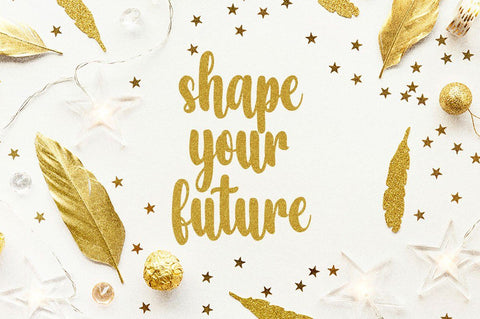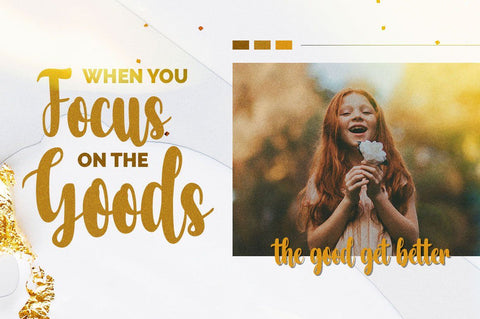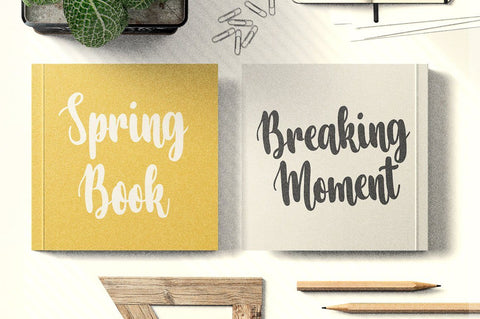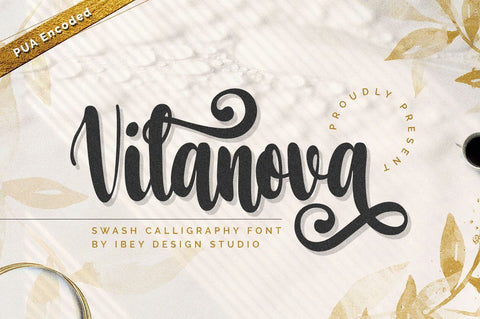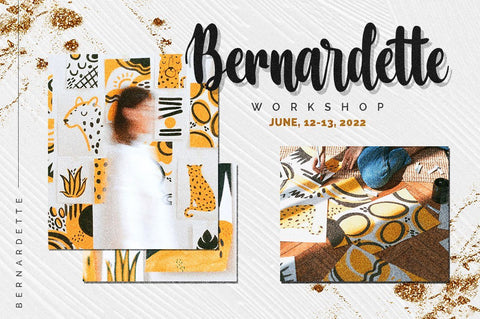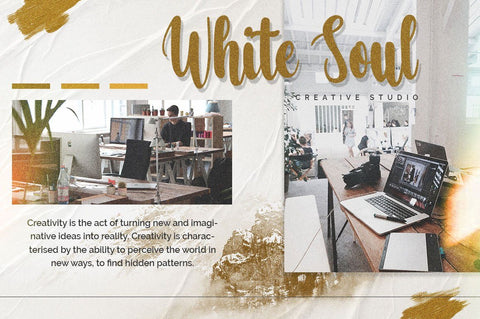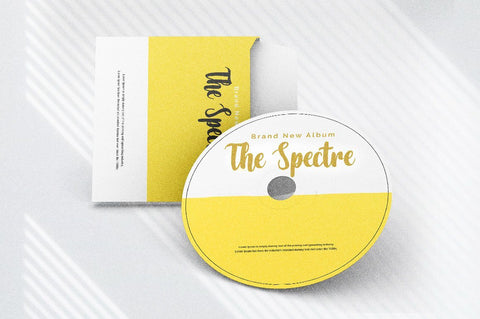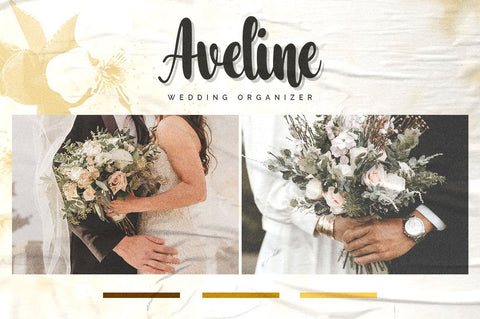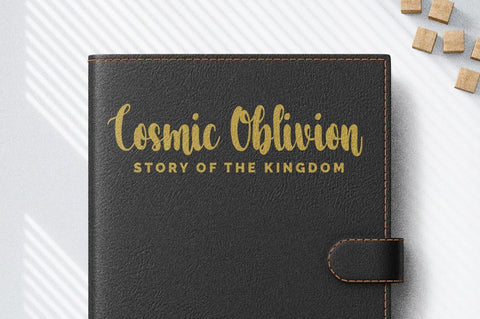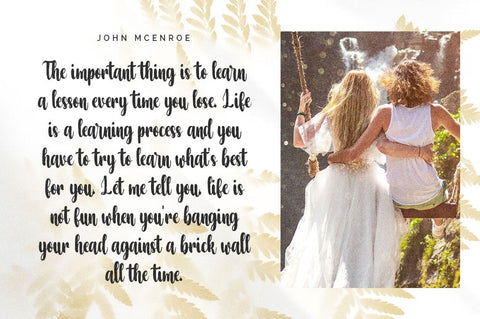
Vilanova - Modern Calligraphy Font
Vilanova Modern Calligraphy Font that inspires friendliness and elegance. It is perfect to use for any of your wonderful creations such as branding projects, logos, brochures, business cards, wedding invitations, and many others!
Vilanova Modern Calligraphy Font is PUA encoded which means you can access all of the glyphs and swashes with ease!